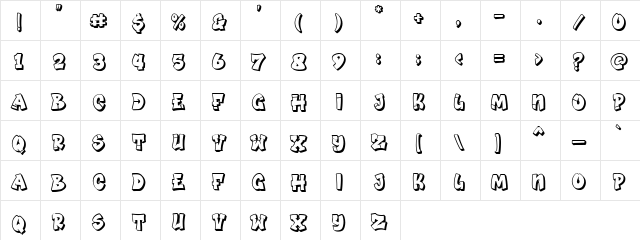
Boom Boom Shadow
Design Context for Boom Boom Typeface
Boom Boom brings ornamental detail and strong personality to headlines and identities, where visual impact matters more than quiet functionality.
Font Pairing: Pair with a clean neutral sans-serif for body copy to let Boom Boom's character lead without overwhelming the composition.
Pro Tip: Treat Boom Boom as the centrepiece of your typographic hierarchy. One strong heading set in a decorative face can carry an entire layout.